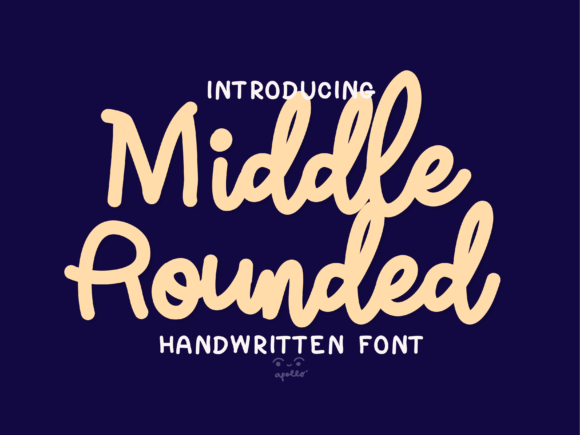
Why Middle Rounded Script is Your New Secret Weapon for Branding
When you first see Middle Rounded Script, there’s an immediate sense of warmth. It doesn't just sit on the page; it dances. This premium font is a masterclass in balance, offering the organic, free-flowing nature of a handwritten font while maintaining the legibility required for professional communication. It avoids the scratchy, aggressive look of some modern typography and instead leans into soft, rounded terminals and a steady baseline. It feels personal, almost like a handwritten note from a friend, but it possesses the structural integrity needed for high-stakes design assets.
The visual personality of this typeface is defined by its smooth curves and gentle connections. Unlike rigid sans serif font families, Middle Rounded Script breathes. The letterforms flow into one another with a natural rhythm that mimics the movement of a brush or a high-quality felt-tip pen. This makes it an incredibly versatile display font. It captures attention without shouting, making it a perfect candidate for headers, sub-headers, and hero sections where you want to evoke emotion immediately. It bridges the gap between casual authenticity and polished elegance, a rare trait in the world of creative font design.
Strategic Applications for Modern Brands
Understanding where a script font belongs is half the battle in typography. You wouldn't use a complex handwritten font for body text on a mobile app, just as you wouldn't use a sterile sans serif for a wedding invitation. Middle Rounded Script excels specifically in areas where human connection is paramount. For entrepreneurs and small business owners, this typeface is a powerful tool for establishing a brand identity that feels approachable and genuine.
Consider the world of packaging design. If you are selling artisanal goods—whether it’s homemade candles, organic cosmetics, or gourmet snacks—this font instantly communicates "handcrafted" and "quality." It tells a story before the customer even reads the label. The rounded edges soften the visual impact, making the product feel inviting. Similarly, in editorial design, such as magazine headers or pull quotes, Middle Rounded Script can break up the monotony of standard body text, drawing the reader's eye to key emotional statements or feature titles.
Digital spaces benefit immensely from this typeface as well. Social media graphics are often cluttered and aggressive. Using a script font like Middle Rounded Script can stop the scroll by offering a moment of visual calm. It works beautifully for Instagram stories, Pinterest pins, and promotional banners where you want to highlight a sale or a key message without looking overly corporate. It is a creative font that adapts well to the fast-paced nature of web design, provided it is used in short, impactful bursts.
Mastering Font Pairing and Visual Hierarchy
No font is an island. One of the most critical skills in modern typography is knowing how to pair typefaces. A standalone script can sometimes feel overwhelming or difficult to read if overused. The true strength of Middle Rounded Script reveals itself when it is paired with a strong partner. Because of its decorative nature, it demands a clean, grounding companion.
A classic pairing strategy is to combine this display font with a geometric sans serif font. The clean, straight lines of a sans serif typeface provide a structural contrast that makes the curves of the script pop. For example, imagine a logo design where the brand name is written in Middle Rounded Script, and the tagline is set in a simple, all-caps sans serif beneath it. The hierarchy is instantly clear: the script grabs attention with personality, while the sans serif delivers the information with clarity.
Alternatively, pairing it with a traditional serif font can create a "classic meets modern" aesthetic. This works well for lifestyle blogs, boutique hotels, or high-end retail brands. The serif font provides a sense of history and establishment, while the handwritten font injects a contemporary, human touch. The key is to ensure sufficient contrast in weight and structure so the two fonts don’t compete for attention but rather complement each other.
Practical Considerations for Implementation
Before integrating any commercial font into your workflow, practical evaluation is necessary. First, look at the specific styles included in the package. Middle Rounded Script often comes with stylistic alternates or swashes—extra flourishes that can be added to letters to make them even more decorative. Knowing how to access these OpenType features allows you to customize the look further, ensuring your design assets don't look identical to someone else’s using the same font.
Readability is the non-negotiable rule. While this is a beautiful creative font, it is best kept to larger sizes. Using it for long paragraphs or small mobile text will frustrate your audience. Stick to headlines, single-line callouts, and logos. Test the font at the exact size you intend to use it. Sometimes, a font looks perfect in a design mockup but becomes muddy when rendered on a low-resolution screen or printed on textured paper.
Ultimately, choosing a typeface is about choosing a voice. Middle Rounded Script speaks with a tone of kindness, creativity, and modern elegance. By applying it thoughtfully to your branding, marketing, and publishing efforts, you transform standard text into a memorable experience for your audience.